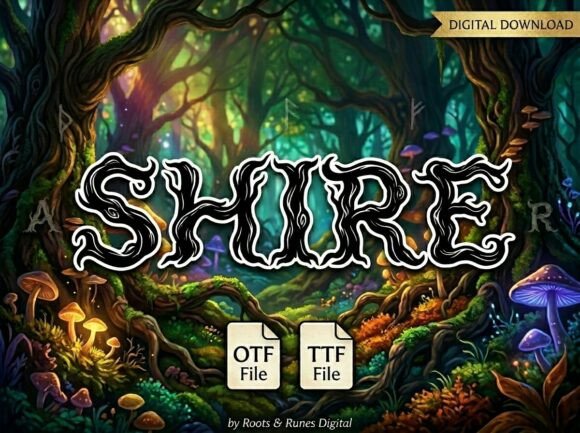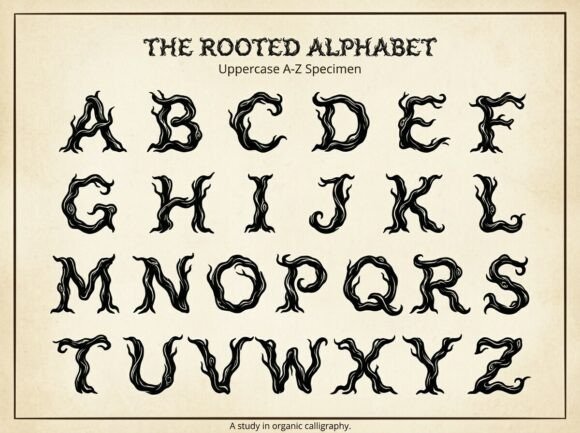
Introduction to Shire Font
Remember the thrill of creating a design that truly stands out? You know, the moment when every element comes together in perfect harmony, and you feel like you’re pushing the boundaries of what’s possible. For designers, this moment is a rush like no other. And that’s exactly what the Shire Font is designed to deliver.
As a versatile and high-quality design resource, the Shire Font offers a unique blend of artistic flair and professional polish. Whether you’re working on a creative project, designing a logo, or crafting packaging that demands attention, this font is sure to make your design shine. With its transparent background and bold, eye-catching style, the Shire Font is the perfect choice for designers who want to take their work to the next level.
Key Features of Shire Font
- High-quality design resource suitable for various creative projects.
- Transparent background allows for seamless integration with any design element.
- Includes a wide range of characters, including uppercase and lowercase letters, numbers, and symbols.
- Supports high-resolution displays, ideal for printing or digital use.
- Font size: 300 DPI, with a scalable design for optimal legibility.
- Perfect for designers, artists, and writers seeking a unique and elegant font for their creative projects.
Honest Review: Shire Font
As a designer, I’m always on the lookout for high-quality design resources that can elevate my creative projects. Recently, I had the chance to try out the Shire Font, and I must say, it’s been a great addition to my design toolkit.
- ✨ High-quality typography: The Shire Font has a beautiful, elegant feel to it, making it perfect for a variety of creative projects.
- ✨ Versatile design: Whether you’re working on a business card, brochure, or website, the Shire Font is a great choice due to its modern yet classic feel.
- ⚠️ Limited customization options: While the font itself is beautiful, there are limited customization options available, which may limit its use in certain creative projects.
- ⚠️ Transparency issues: Be aware that some users may experience issues with the font’s transparent background, which can affect its performance in certain design contexts.
Overall, I’m quite impressed with the Shire Font. It’s a great resource for designers who want to add a touch of elegance to their creative projects. With a few minor limitations in mind, I would definitely recommend giving it a try.
Tips for Getting the Most Out of Shire Font
For the best results, use Shire Font with a transparent background to create a seamless design. You can also experiment with different font sizes and colors to add depth and visual interest to your project.
Common Use Cases for Shire Font
Shire Font is ideal for a variety of creative projects, including branding, marketing materials, and digital art. Its high-quality design and flexibility make it a valuable resource for designers and artists.